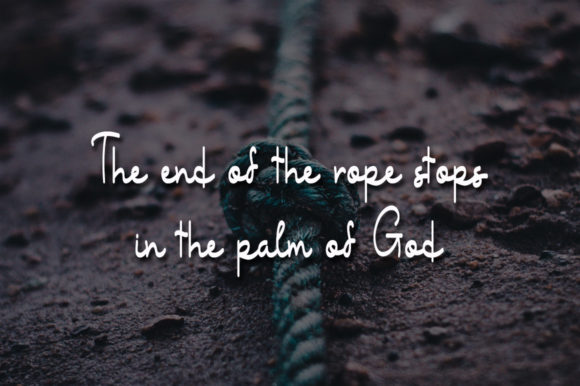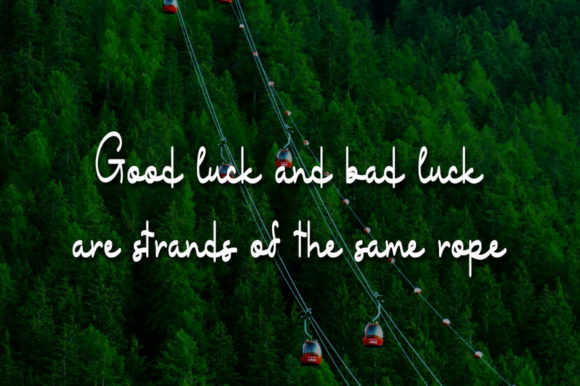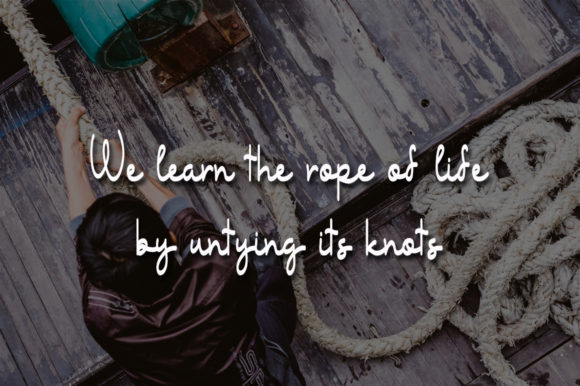
Introduction to Long Rope Font
As designers, we’ve all been there – staring at a blank canvas, searching for the perfect font to bring our creative project to life. The search is over when you discover the Long Rope Font, a flowing handwritten font that adds a touch of elegance to any design. Whether you’re working on a logo, branding, social media graphics, or a DIY project, this versatile font is sure to impress.
With its clean and quirky design, the Long Rope Font is a high-quality design resource that’s perfect for creative projects. Its transparent background allows for seamless integration into any design, making it a valuable addition to your toolkit. And the best part? It’s available for free download, making it an accessible resource for designers of all levels.
In this article, we’ll dive into the world of the Long Rope Font, exploring its unique features and uses. Whether you’re a seasoned designer or just starting out, you’ll find this font to be a valuable resource for your next creative project.
Key Features of Long Rope Font
- High-quality design for creative projects, including posters, flyers, and more.
- Includes 6 different styles and 6 different weights, offering a wide range of creative possibilities.
- Perfect for designers and artists looking for a unique and stylish font to elevate their creative project.
Honest Review: Long Rope Font
As a designer, I’m always on the lookout for high-quality design resources that can help me take my creative projects to the next level. The Long Rope Font has definitely caught my attention, and I’m excited to share my honest review with you.
- The Long Rope Font is incredibly versatile, making it perfect for a wide range of creative projects, from branding to packaging design.
- The font’s unique, hand-drawn style gives it a personal touch that’s hard to find in more generic fonts.
Any limitations ⚠️
One potential drawback is that the font may not be suitable for projects that require a more formal or professional tone, as its playful style may come across as too casual.
Overall, I’m thoroughly impressed with the Long Rope Font. Its unique style, versatility, and free download option make it an excellent addition to any designer’s toolkit. Whether you’re working on a creative project or just looking for a fun font to experiment with, the Long Rope Font is definitely worth checking out.
Tips for Getting the Most Out of Long Rope Font
Use Long Rope Font with a transparent background to create a unique and eye-catching design. Experiment with different font sizes and colors to add depth and visual interest to your project. You can also combine Long Rope Font with other design elements, such as images and shapes, to create a creative and engaging design.
Long Rope Font is ideal for creative projects that require a high-quality, custom font. Some common use cases include:
- Branding and identity projects
- Web design projects